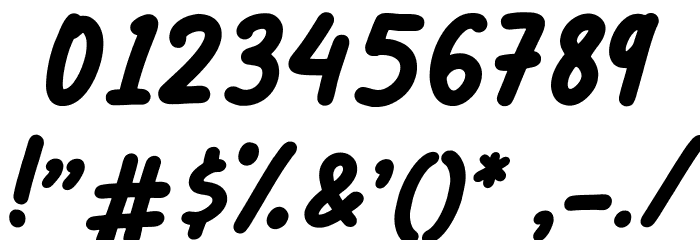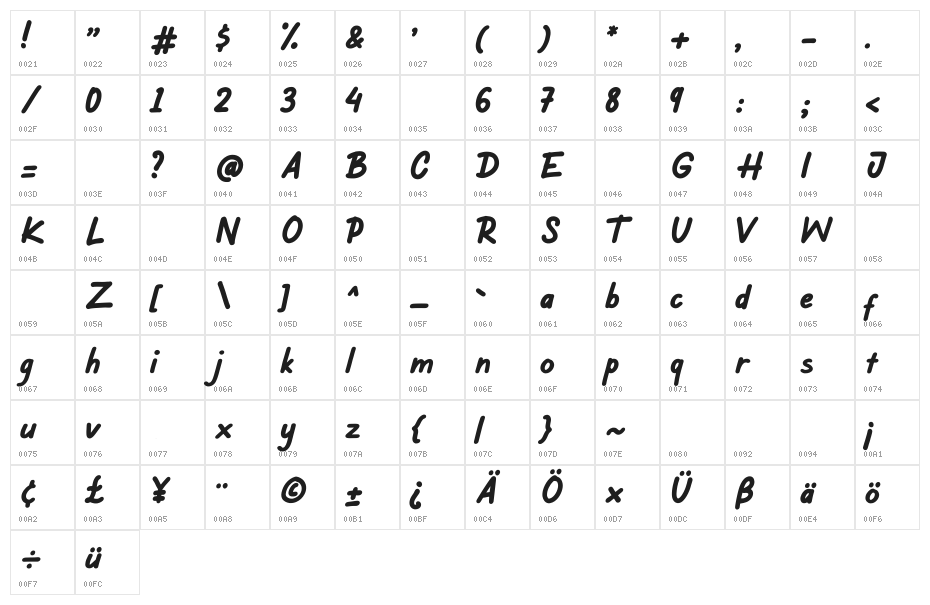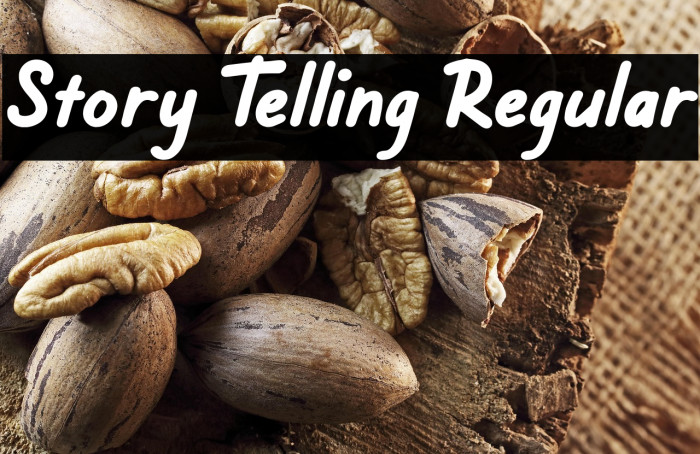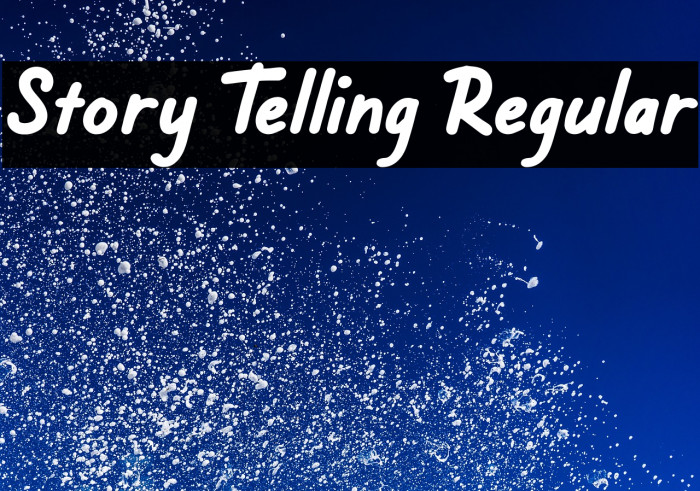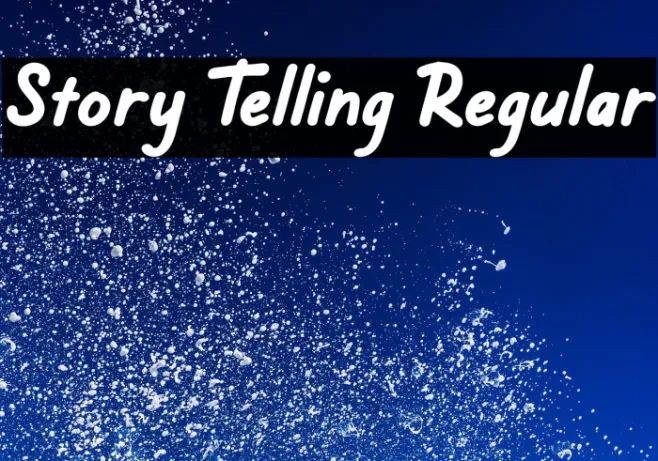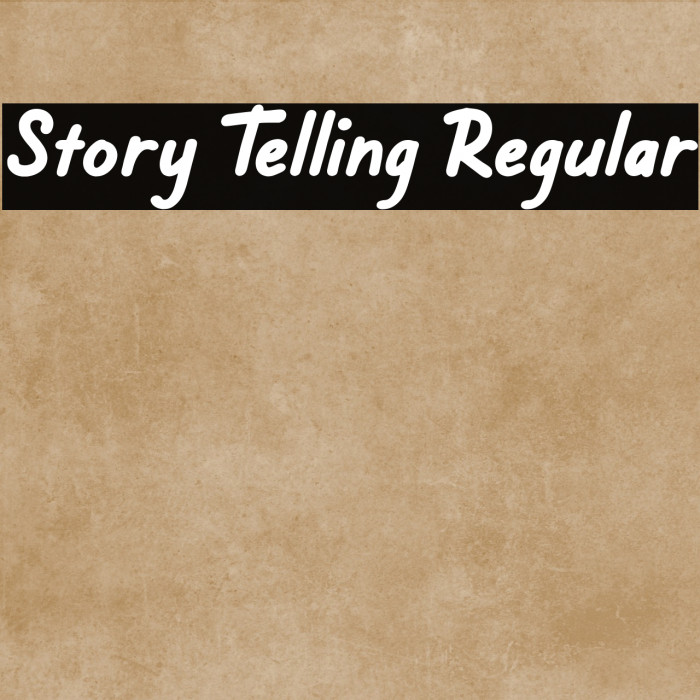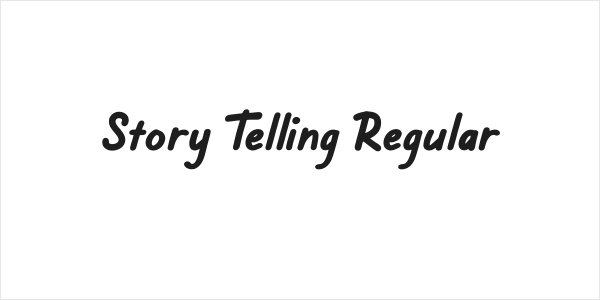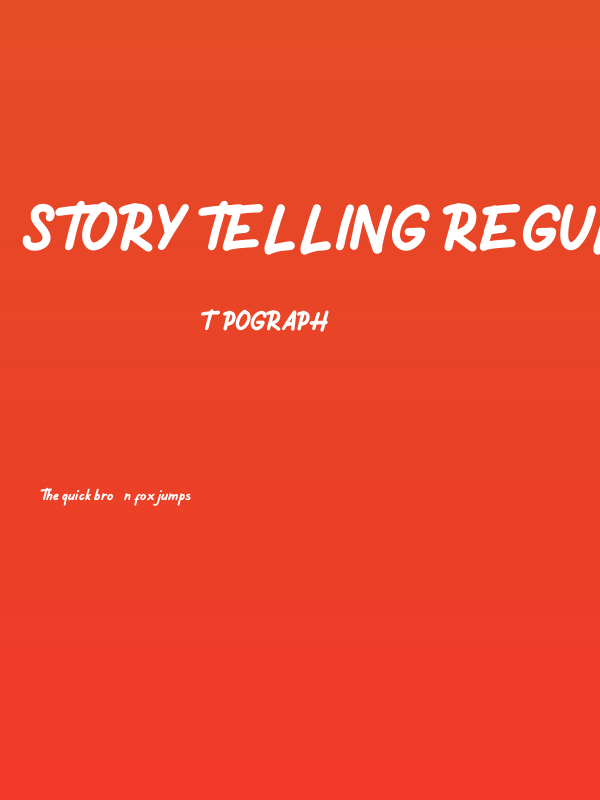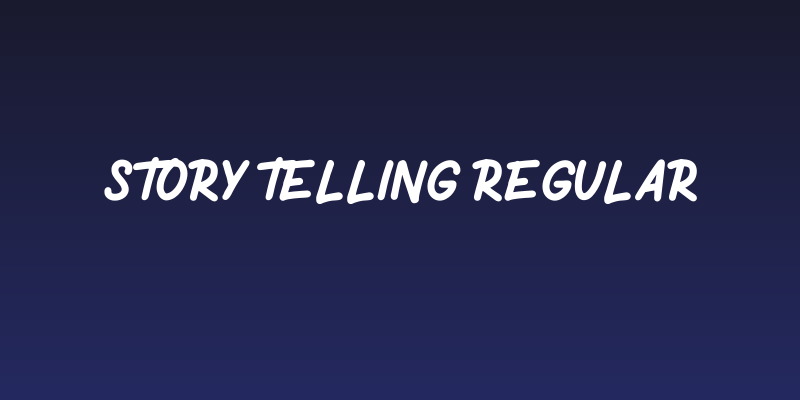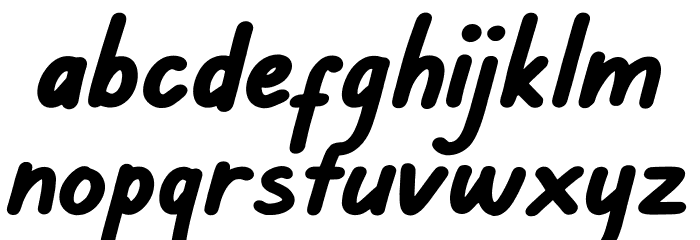
Story Telling Regular Font
Story Telling Regular Description
This font exudes a playful and energetic vibe, characterized by its bold, flowing script style. The letters are slightly slanted, giving it a dynamic and informal appearance. Each character is crafted with smooth, rounded edges, enhancing its approachable and friendly nature. The uppercase letters are distinctly larger, providing a strong presence, while the lowercase letters maintain a consistent flow, making it ideal for creative and casual contexts. The numerals and special characters are equally expressive, ensuring a cohesive look across all text elements.
| Proposed Projects | Ideal for children's books, playful branding, greeting cards, and social media graphics. |